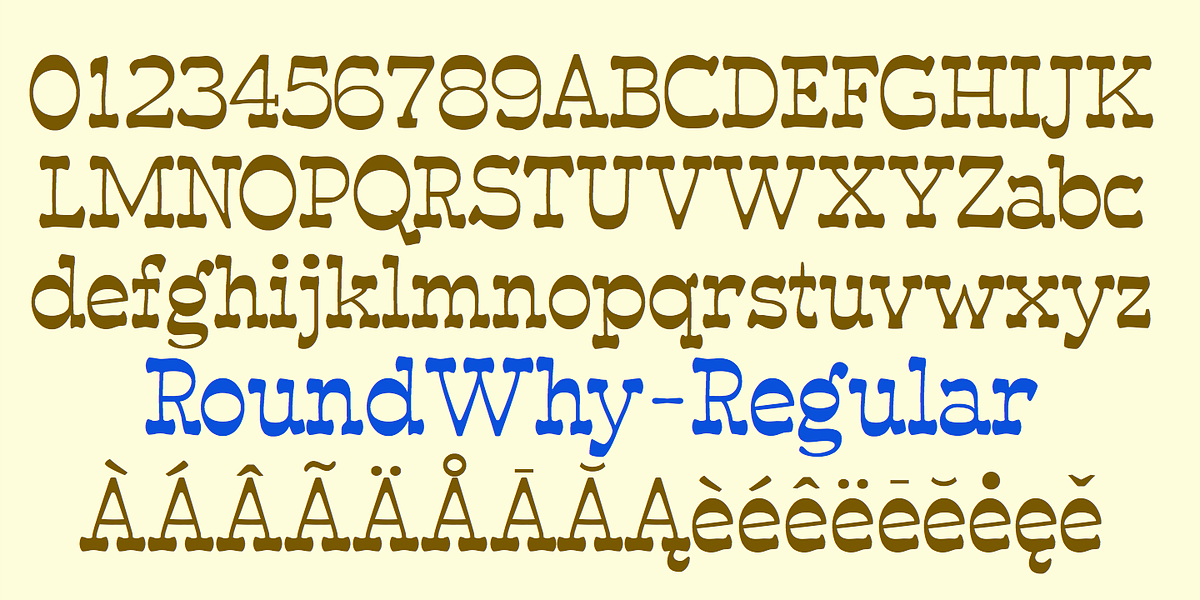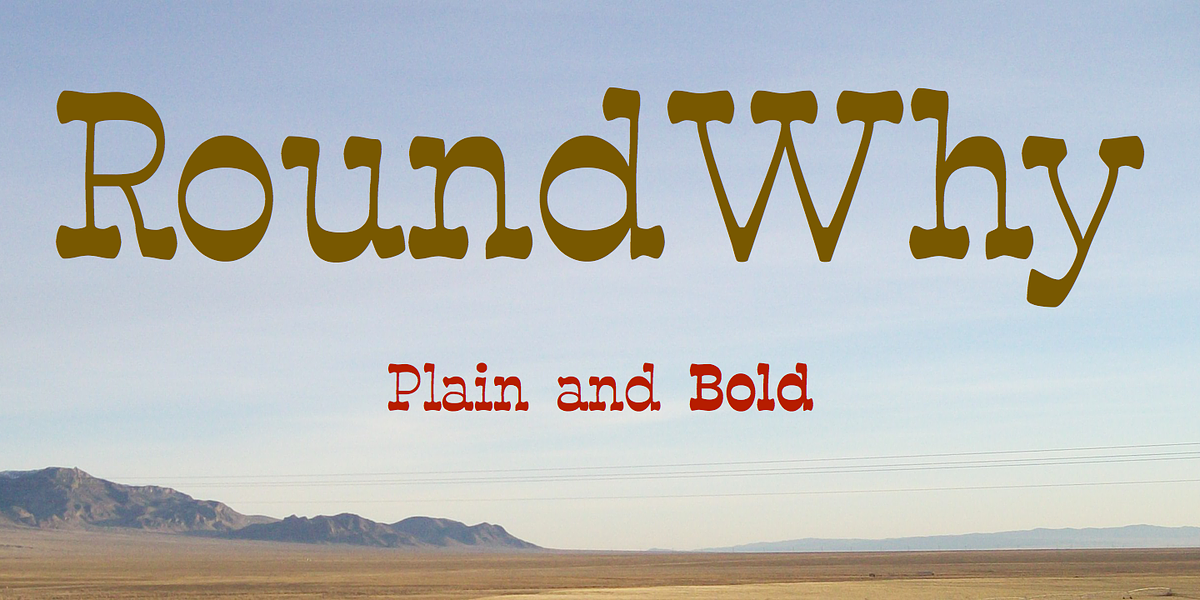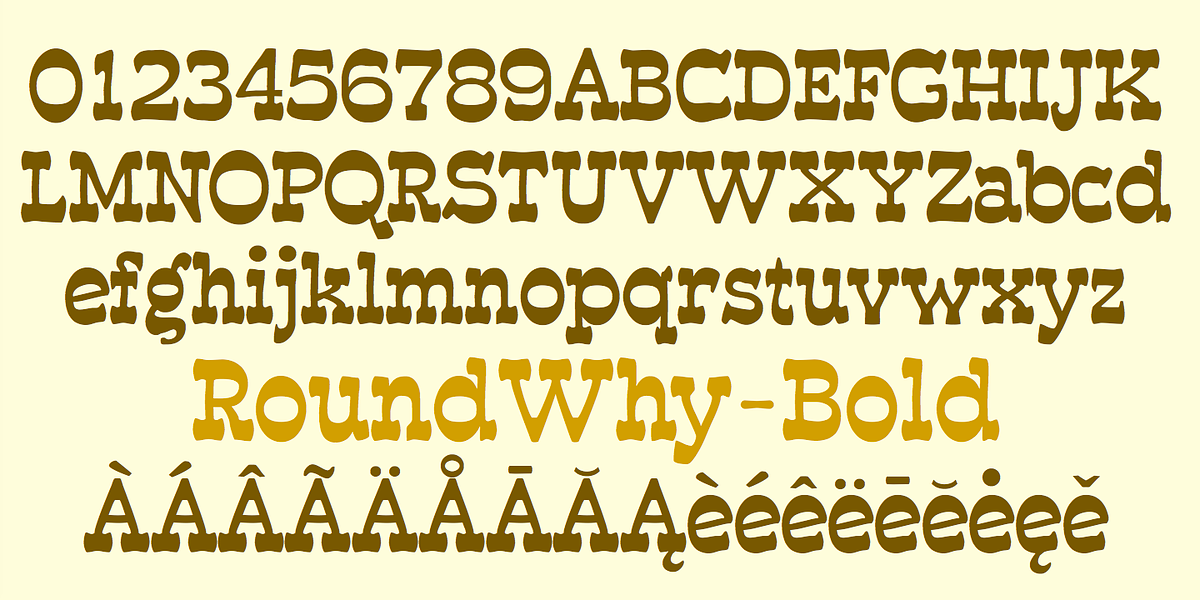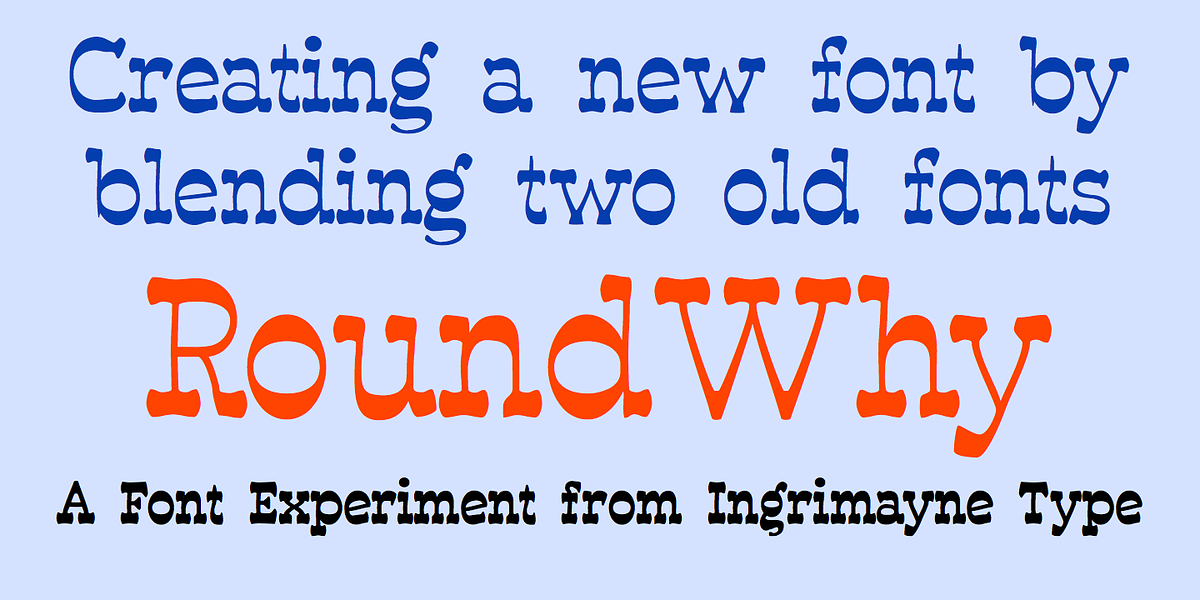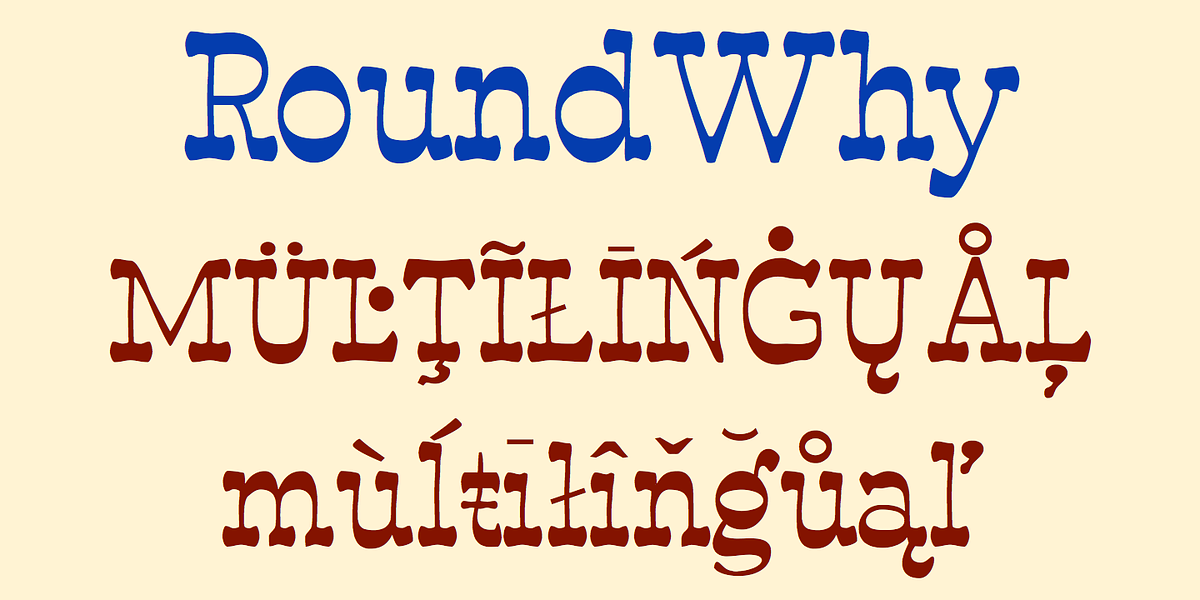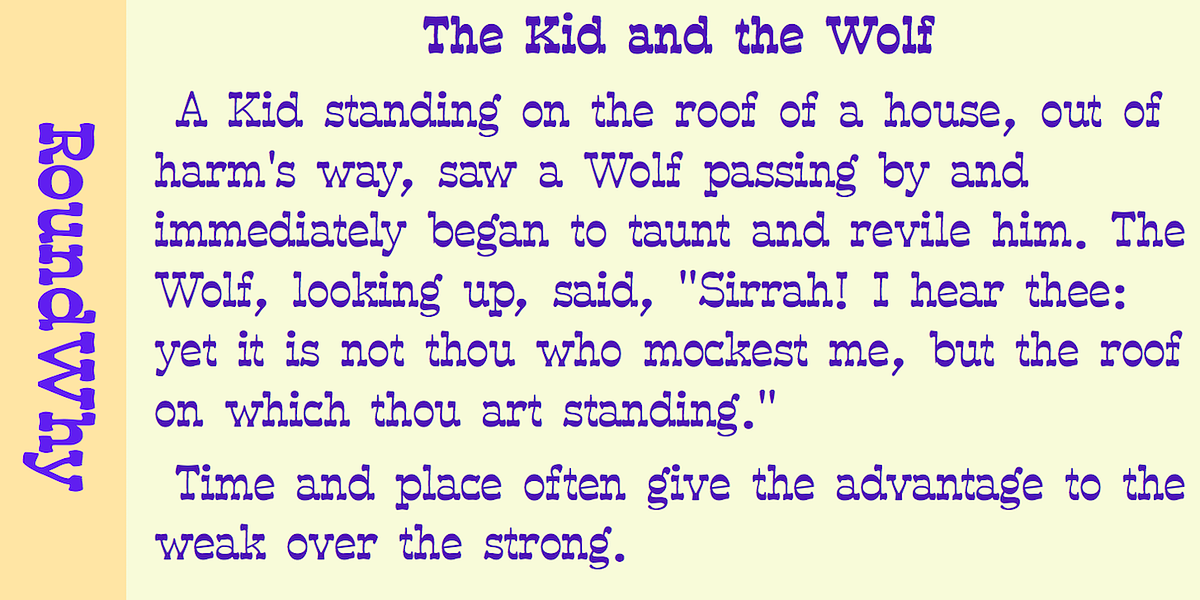
RoundWhy
RoundWhy is a distinctive font that combines elements of two other fonts: RoundUp and WyomingSpaghetti. Both of these parent fonts feature prominent, oversized serifs. However, RoundUp has round serifs while WyomingSpaghetti utilizes square serifs. This blending results in a unique woodcut style reminiscent of vintage wood type designs.